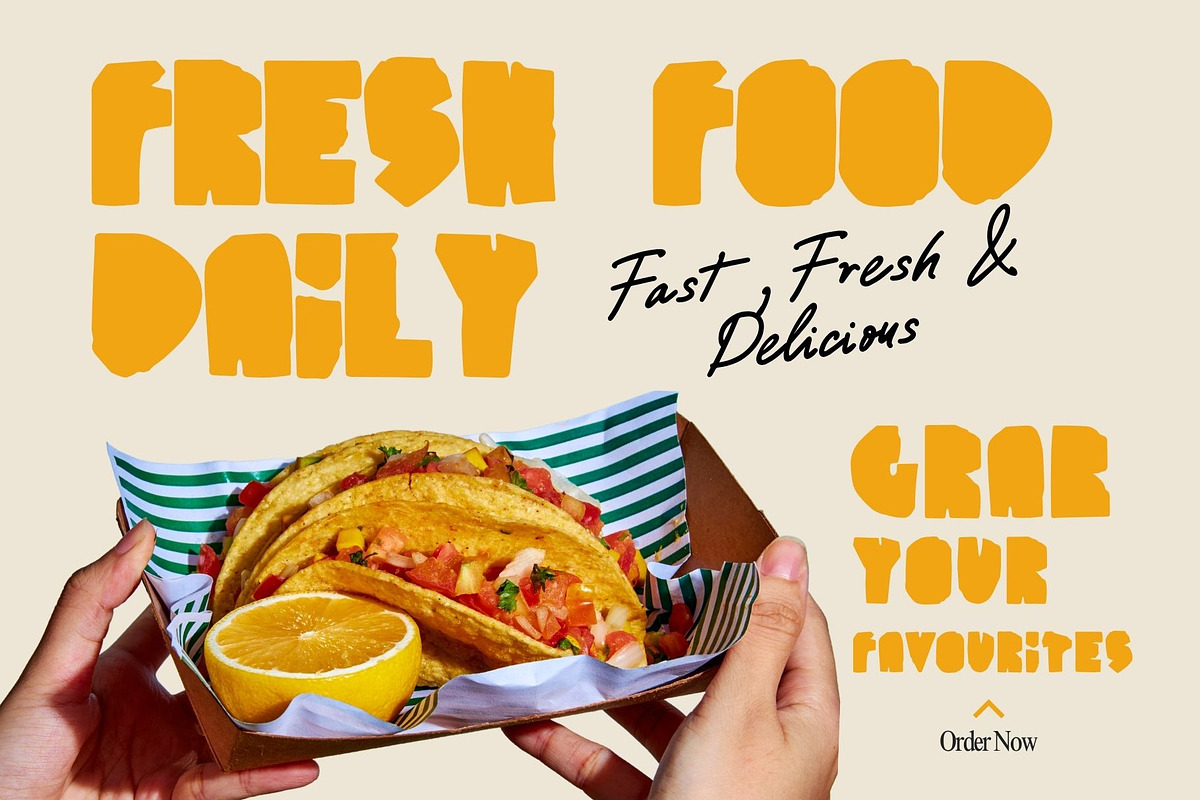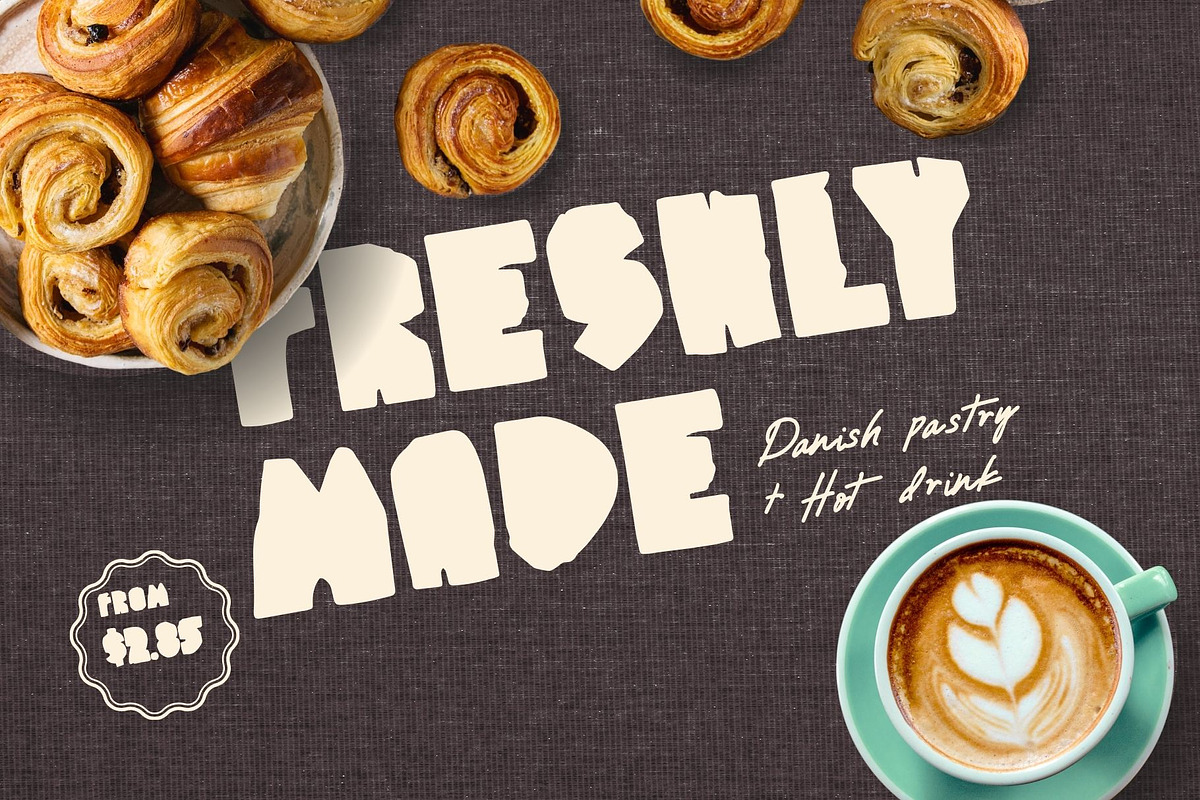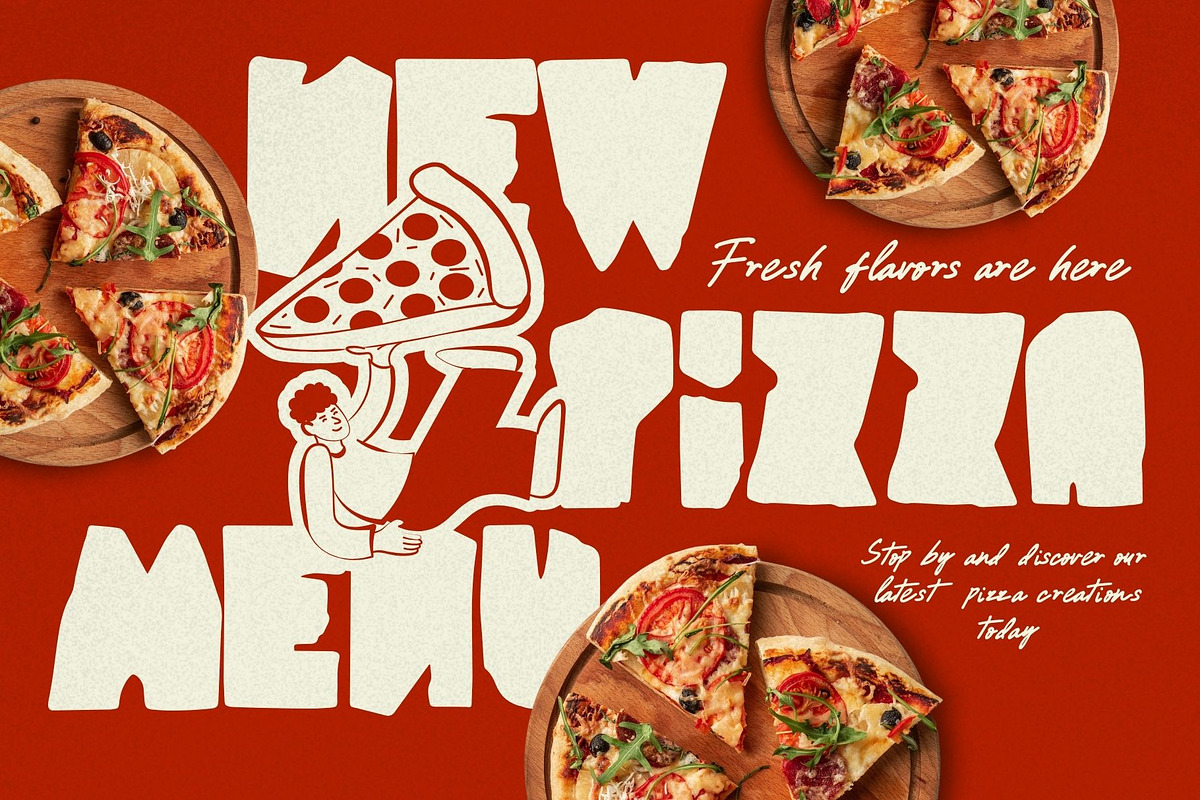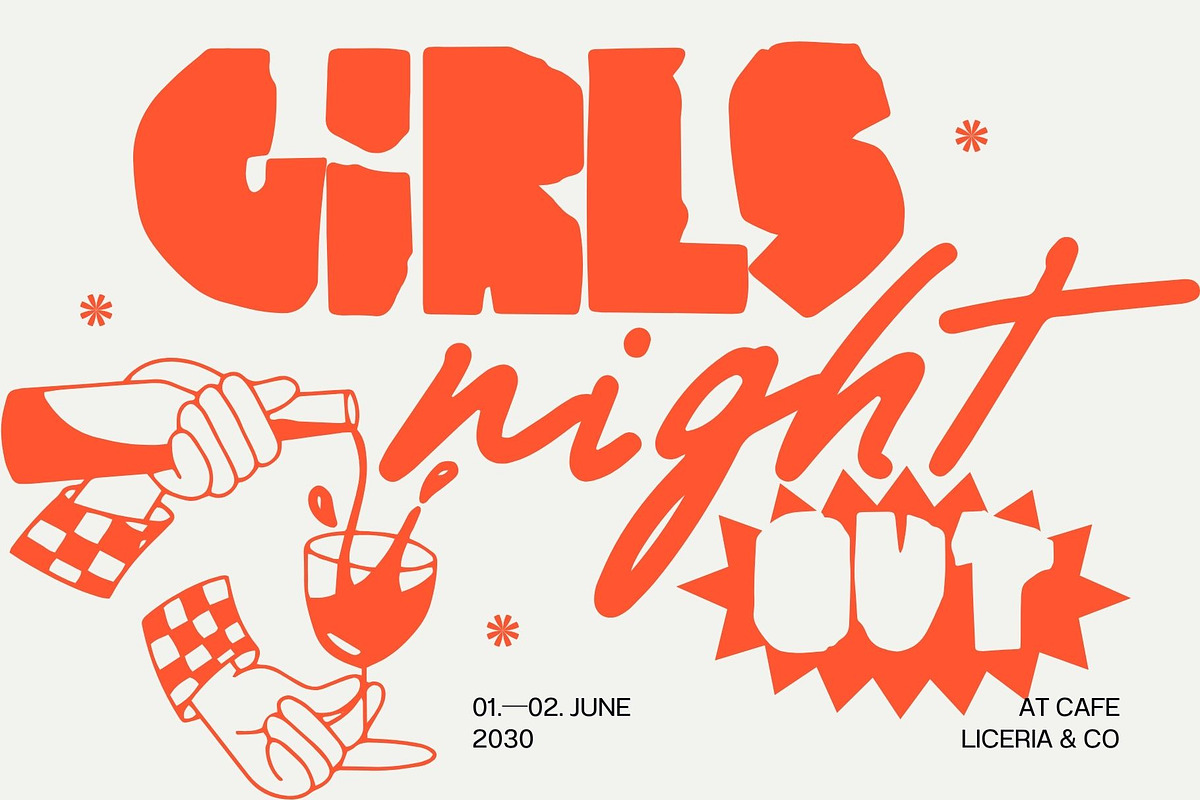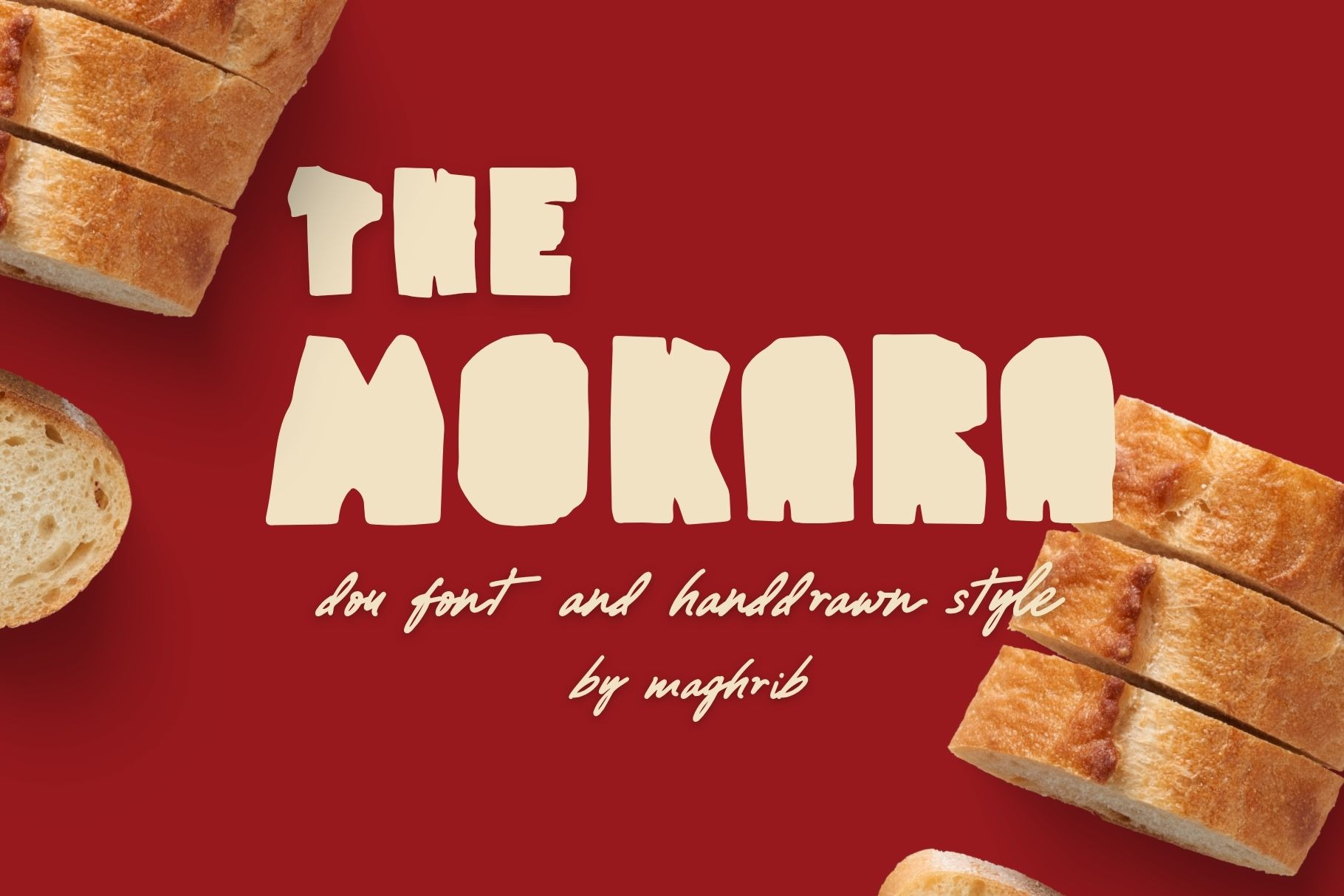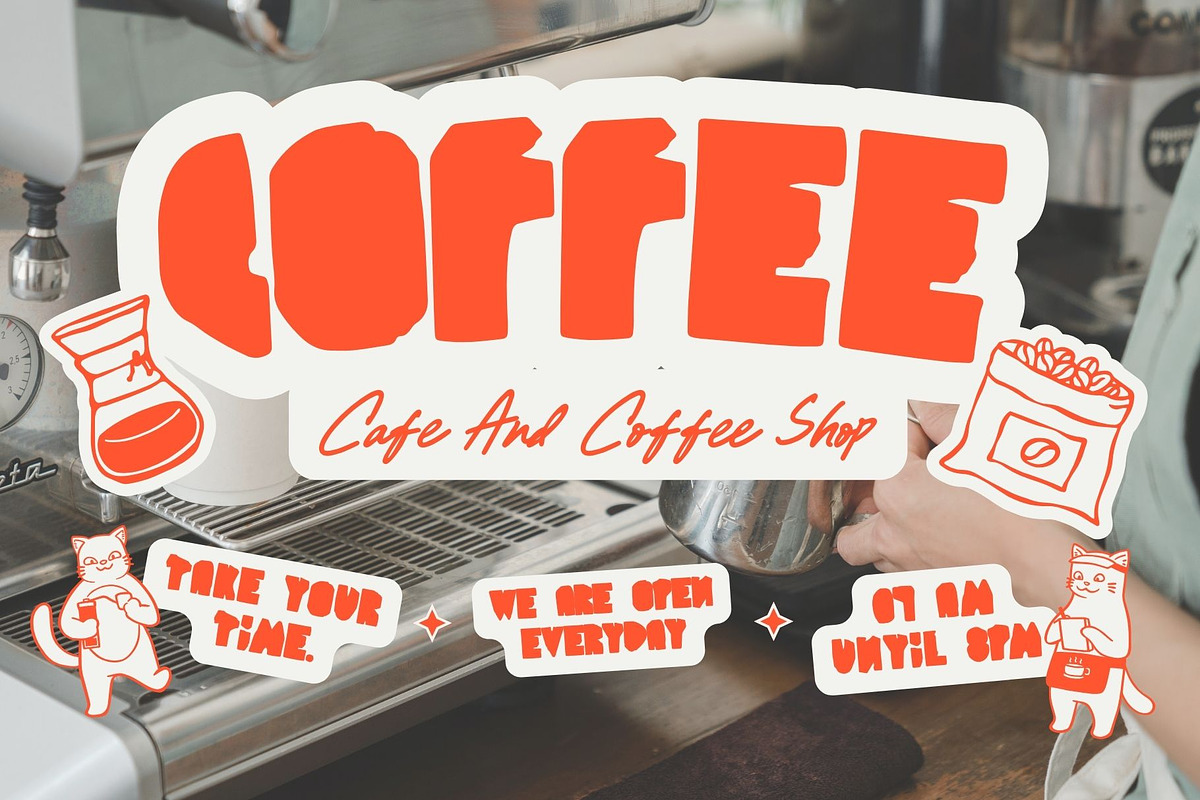
Mokara Handdrawn Font Duo
Meet Mokara, a playful and expressive font duo that blends bold handdrawn display letters with a natural handwritten script style. Designed with an authentic handcrafted feel, Mokara brings warmth, personality, and a retro artistic touch to your creative projects.
This font duo is perfect for creating eye-catching branding with a fun and organic vibe. The chunky handdrawn display font delivers strong visual impact, while the flowing script adds a personal and stylish accent. Together, they create a versatile combination that works beautifully for modern café branding, restaurant menus, food packaging, bakery posters, street food promotions, vintage-inspired designs, social media content, logo design, and creative editorial layouts.
Mokara was carefully crafted to give your typography a raw, handmade character that feels friendly, bold, and full of energy. Whether you are designing for a cozy coffee shop, trendy burger restaurant, artisan bakery, or creative poster campaign, Mokara helps your work stand out with a unique handcrafted aesthetic.
Handdrawn Display Font
Handwritten Script Font
Font Duo Combination
Easy to Mix and Match
Perfect for Branding & Poster Design
Cafe Branding, Restaurant Logos, Food Posters, Bakery Packaging, Coffee Shop Menus, Social Media Graphics, Vintage Posters, Creative Headlines, Product Packaging, Artisan Branding, Handcrafted Labels, and many more creative projects.
Bring a fresh handmade vibe to your designs with Mokara Font Duo — bold, playful, organic, and made to attract attention instantly.